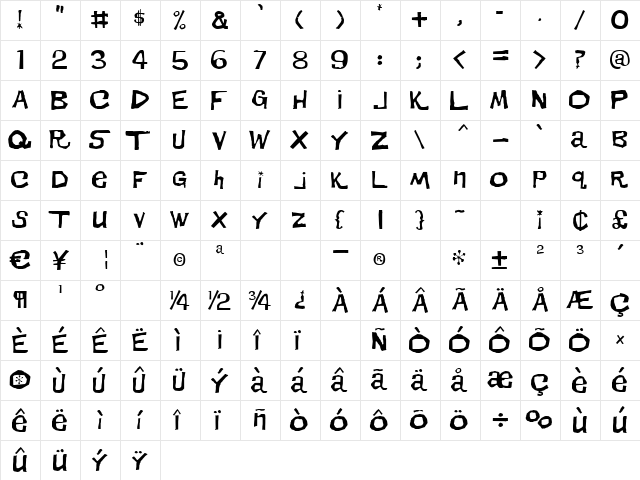
Dirt Devil Regular
Design Context for Dirt Devil Typeface
Dirt Devil is a composed and adaptable typeface that performs quietly and consistently across a wide range of design contexts.